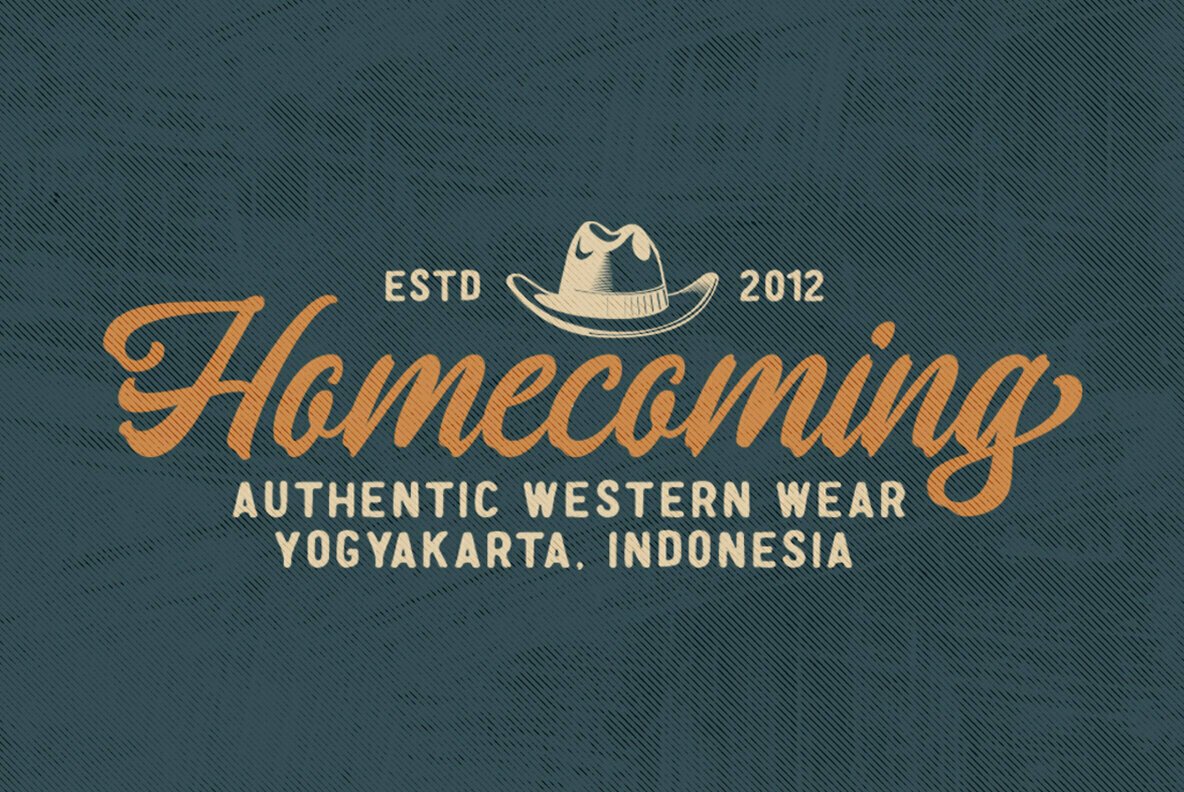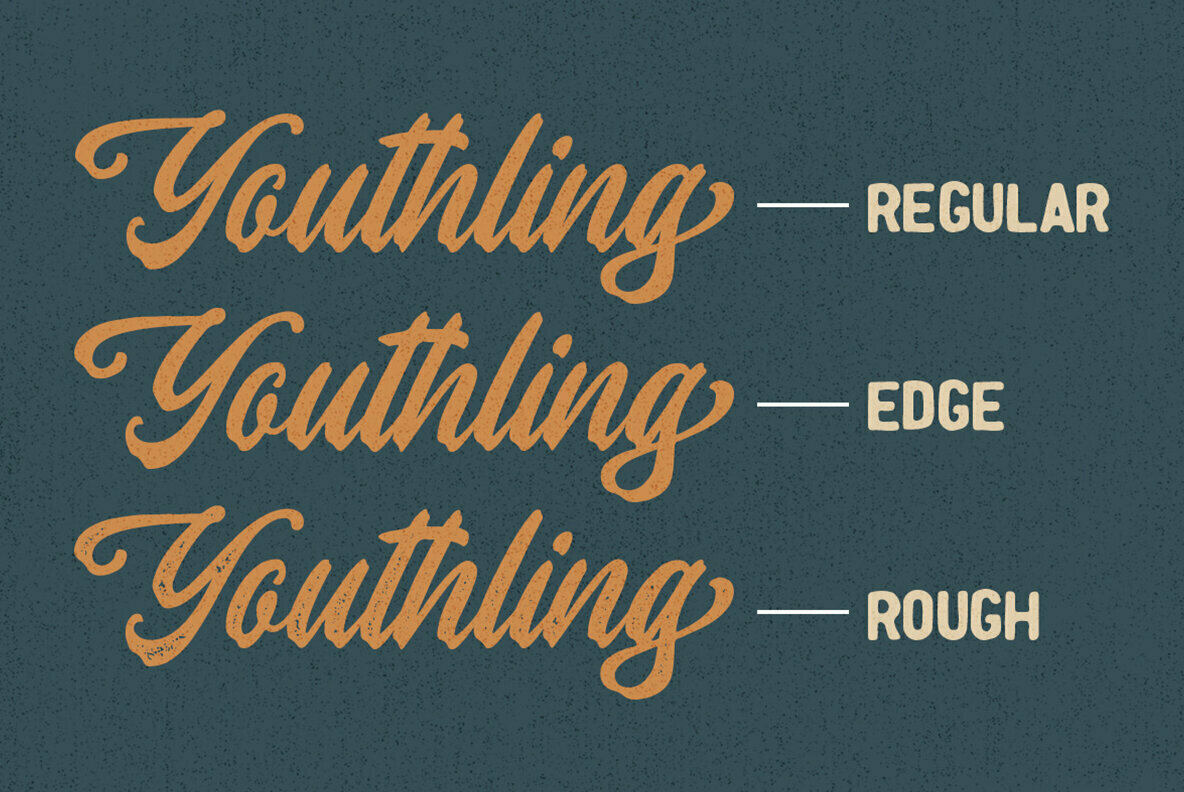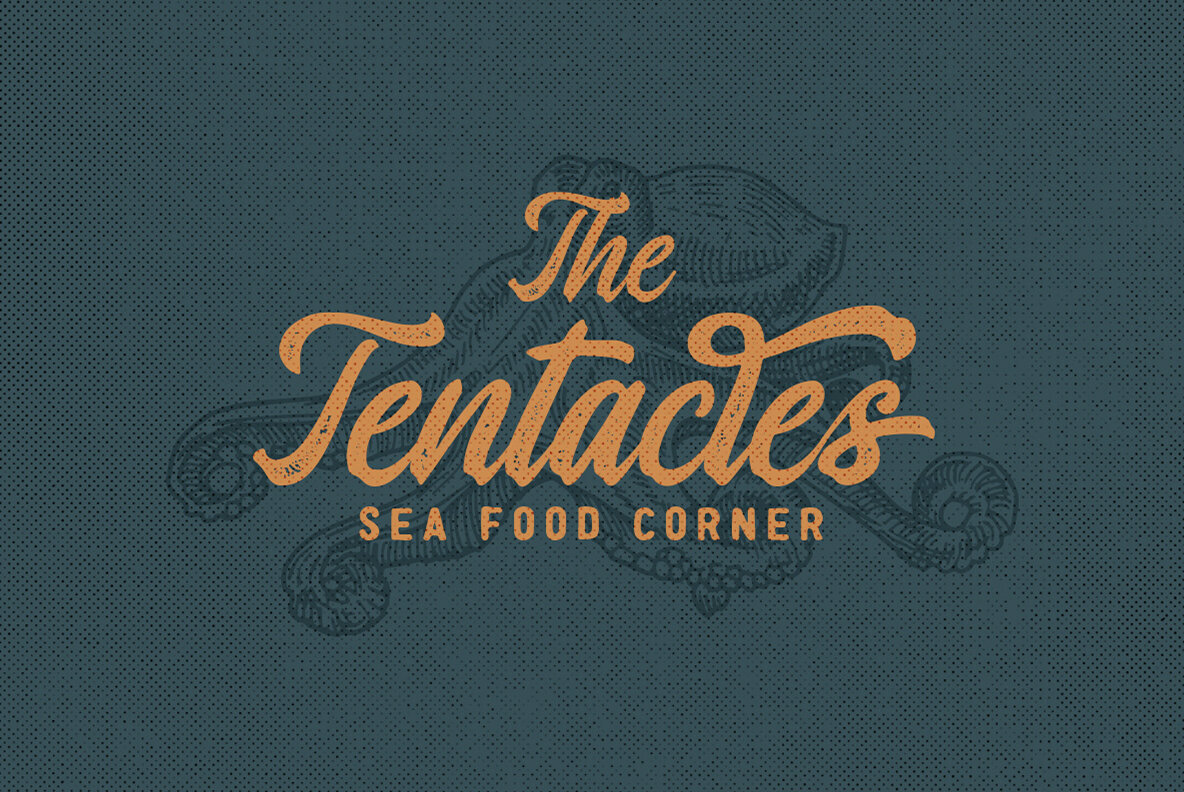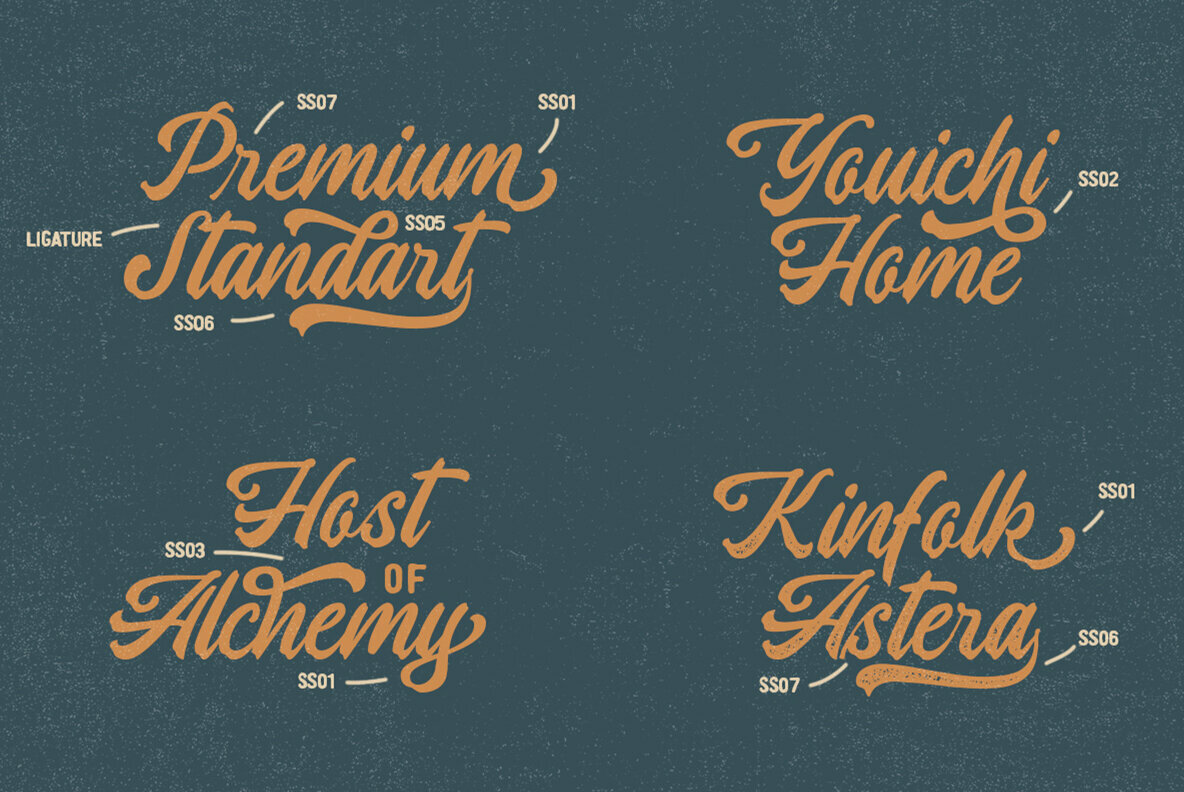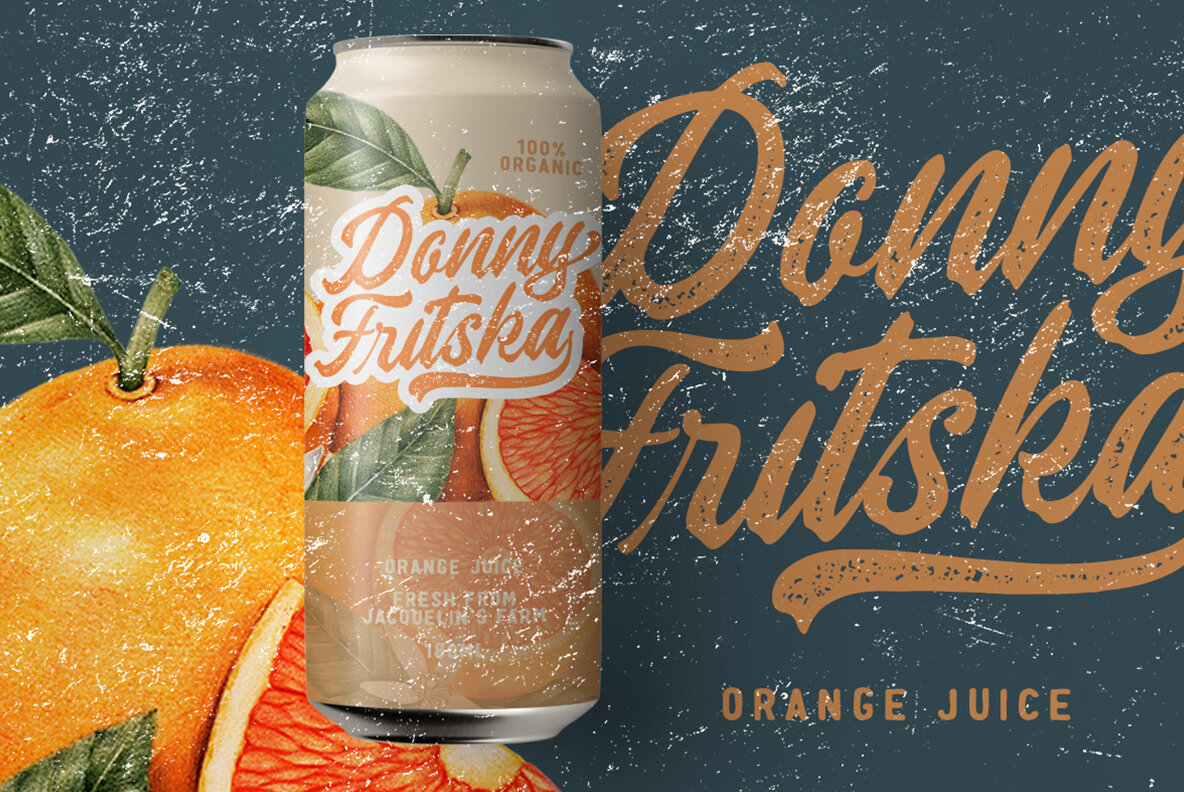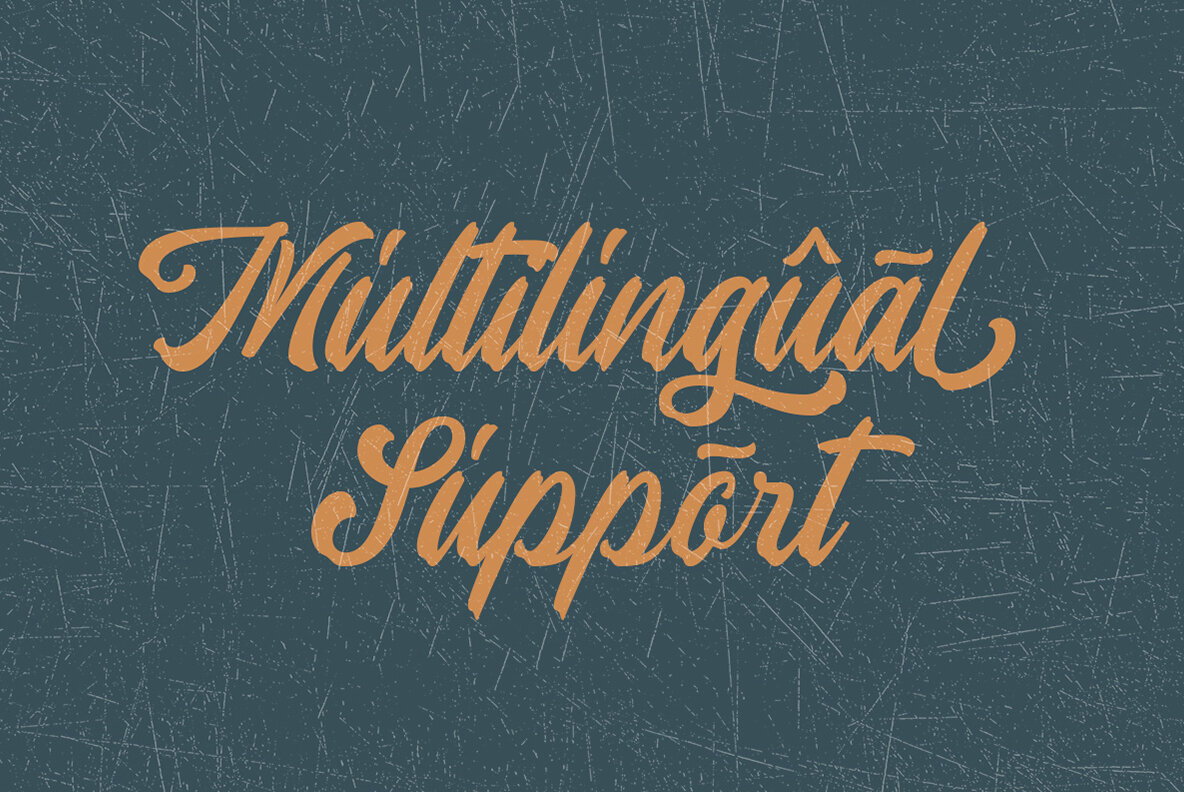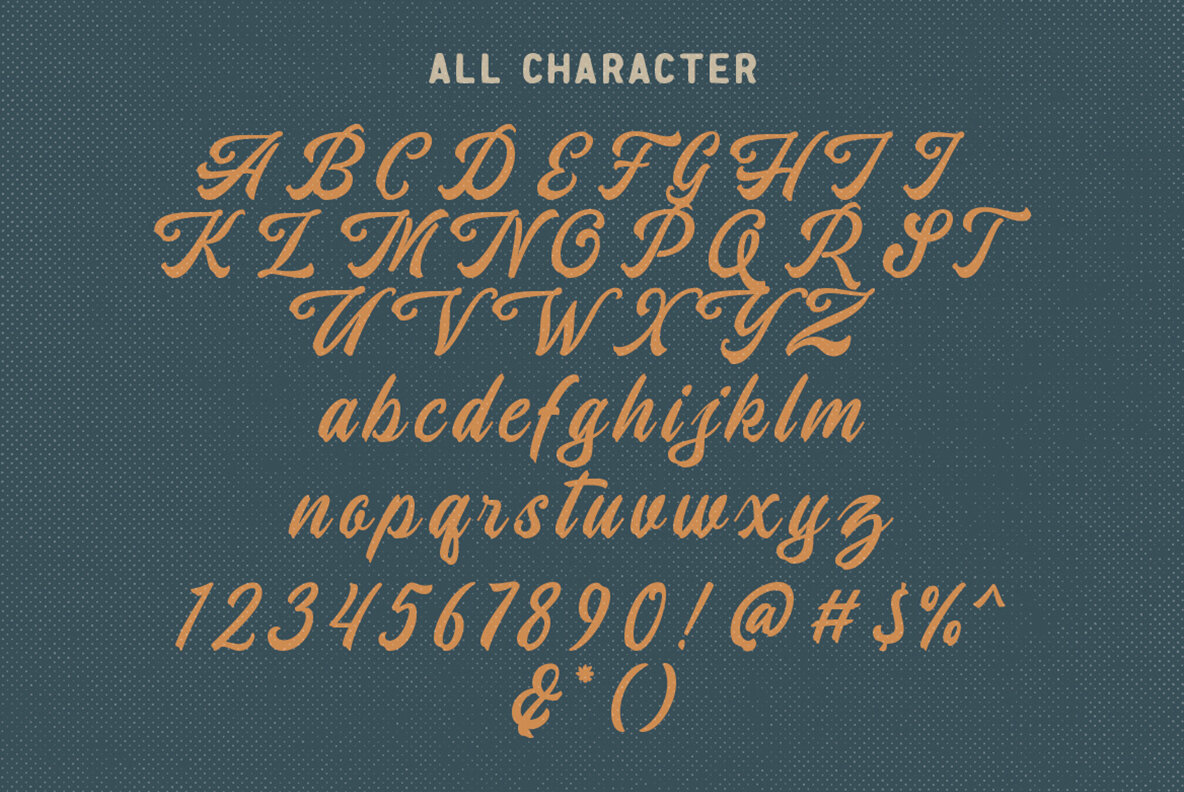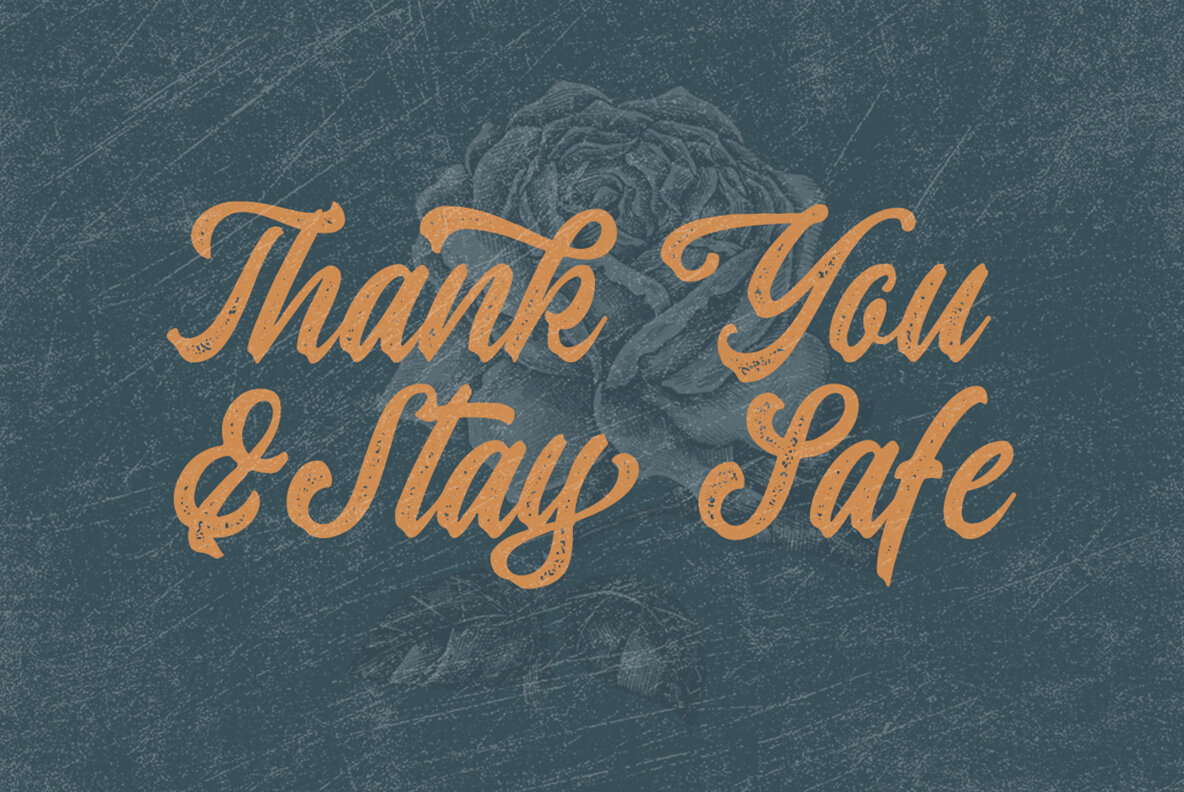
Moyshire Font
Moyshire Regular
Moyshire Edge
Moyshire Rough
Dive into the charm of Moyshire, a script font that seamlessly combines vintage aesthetics with a subtle brushwork influence, resulting in an eye-catching boldness. This typeface serves as an ideal solution for branding logos, illustrations, and apparel design, reflecting both heritage and modern flair.Moyshire: Elegance in Vintage Script